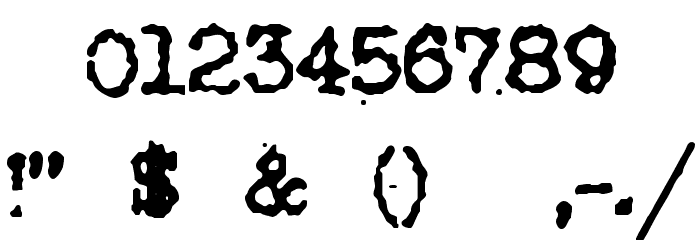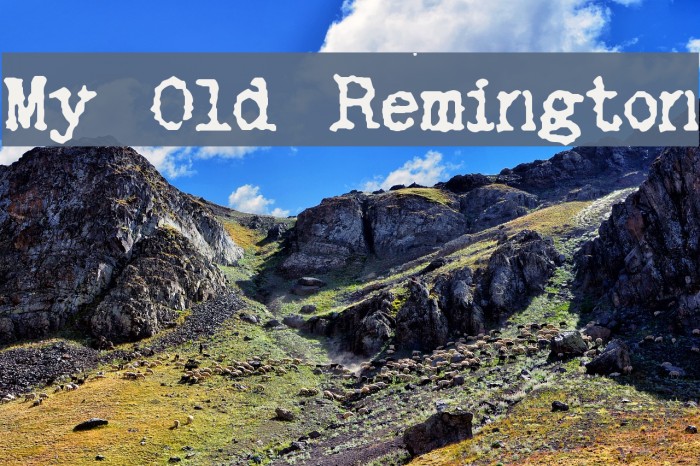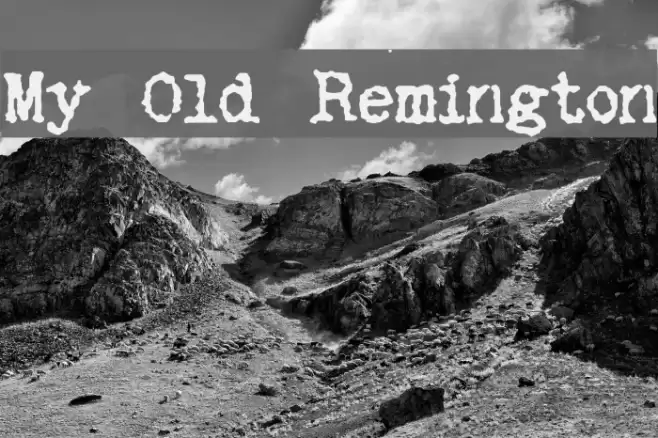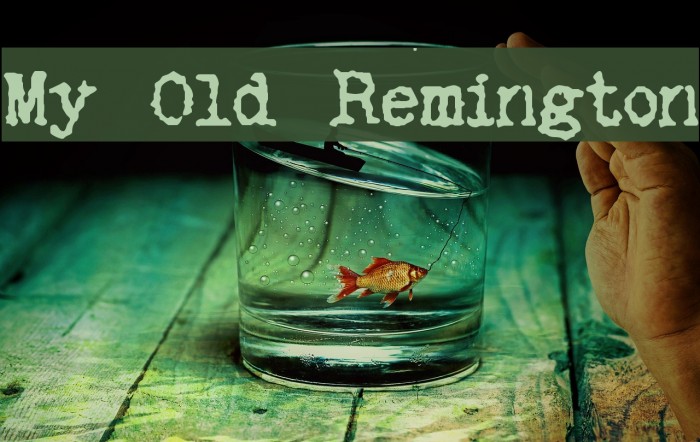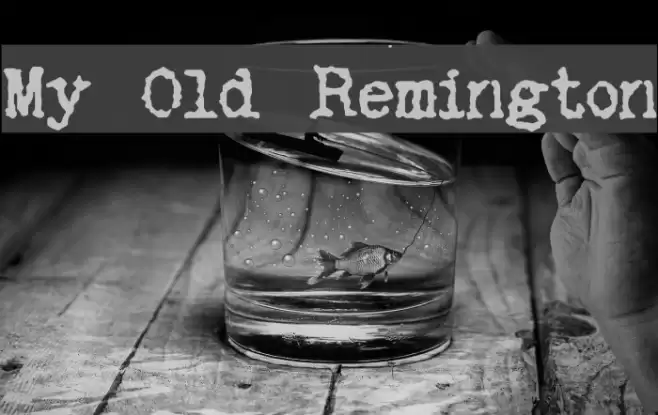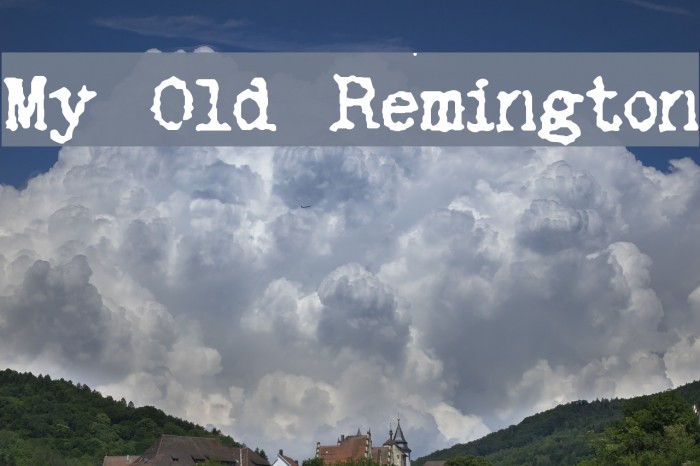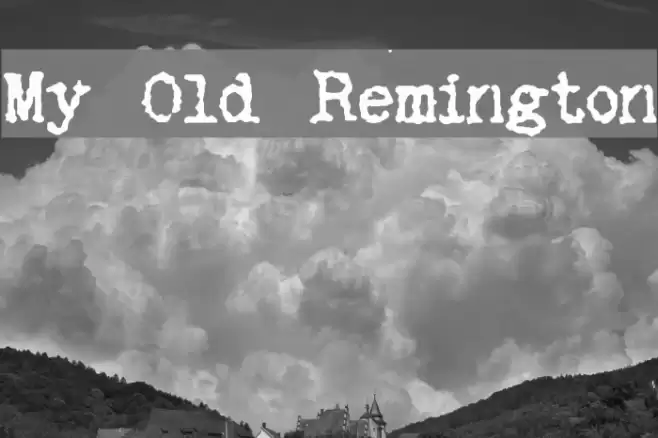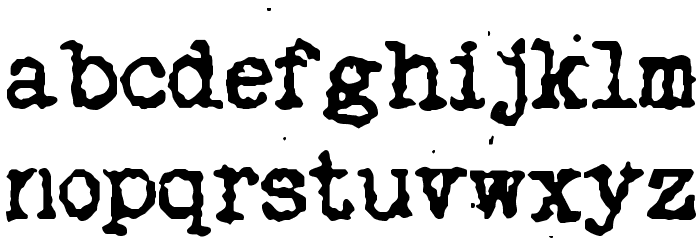
My Old Remington Font
My Old Remington Description
This typeface exudes a vintage, typewriter-inspired aesthetic with a distinct, worn texture that mimics the look of aged ink on paper. The characters are bold and slightly irregular, giving them a handcrafted feel. The uppercase and lowercase letters maintain a consistent style, with rounded edges and a slightly distressed appearance. Numbers and special characters follow the same design, ensuring uniformity across all glyphs. The font's nostalgic charm makes it ideal for projects that require a retro or historical touch.
| Overall Style | Vintage |
| Proposed Projects | Ideal for vintage-themed designs, historical documents, retro posters, and creative projects that require a nostalgic touch. |